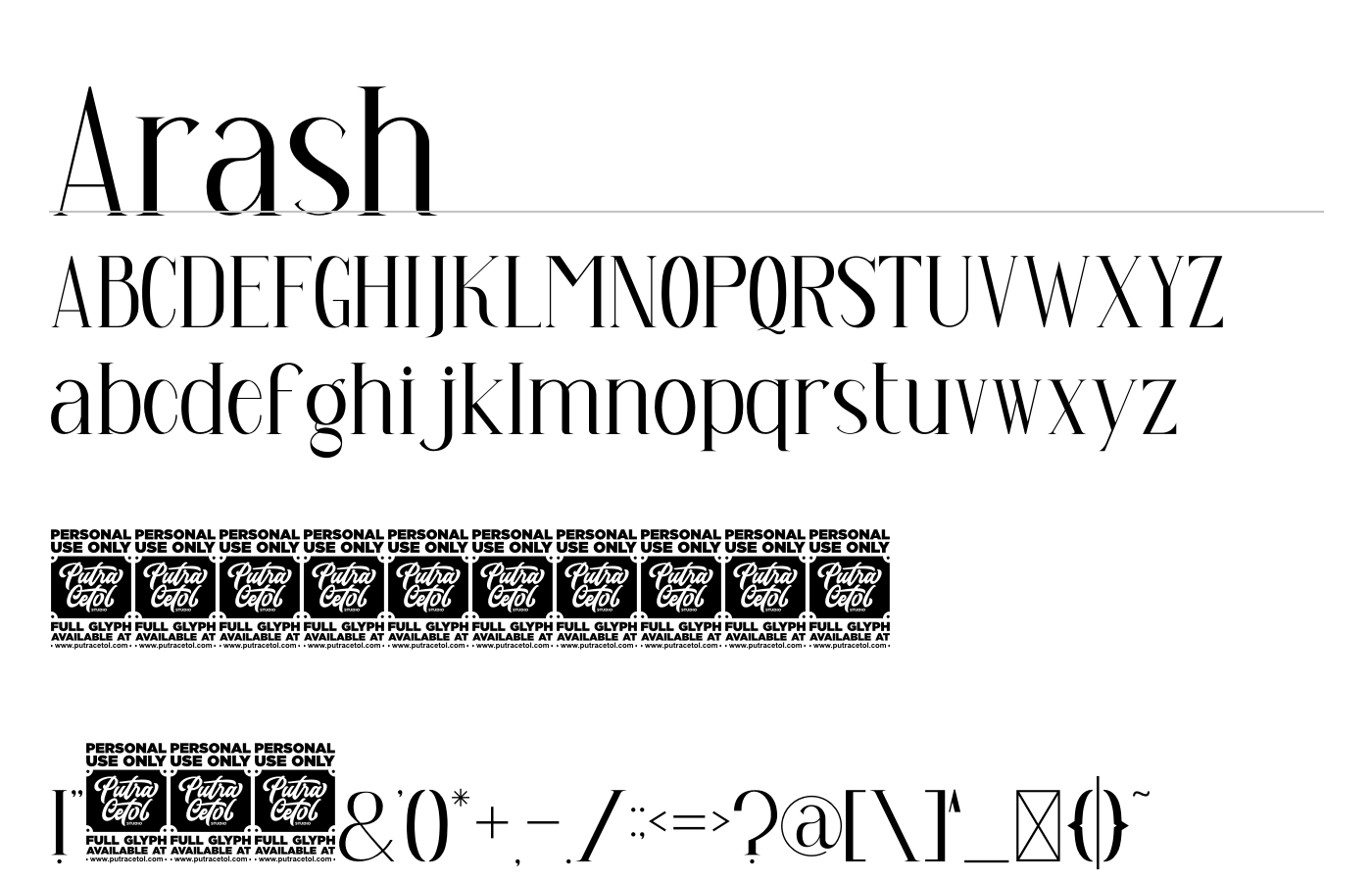
Arash is an elegant serif font characterized by its tall, narrow letterforms with high contrast between thick and thin strokes, lending it a refined and sophisticated appearance. Its delicate, sharp serifs and distinctive details create a modern yet classic vibe, making it ideal for luxury branding, editorial headlines, and stylish logo design where a sense of exclusivity and elegance is desired.
Arash Font
About Arash Font
| Font family | Arash Font |